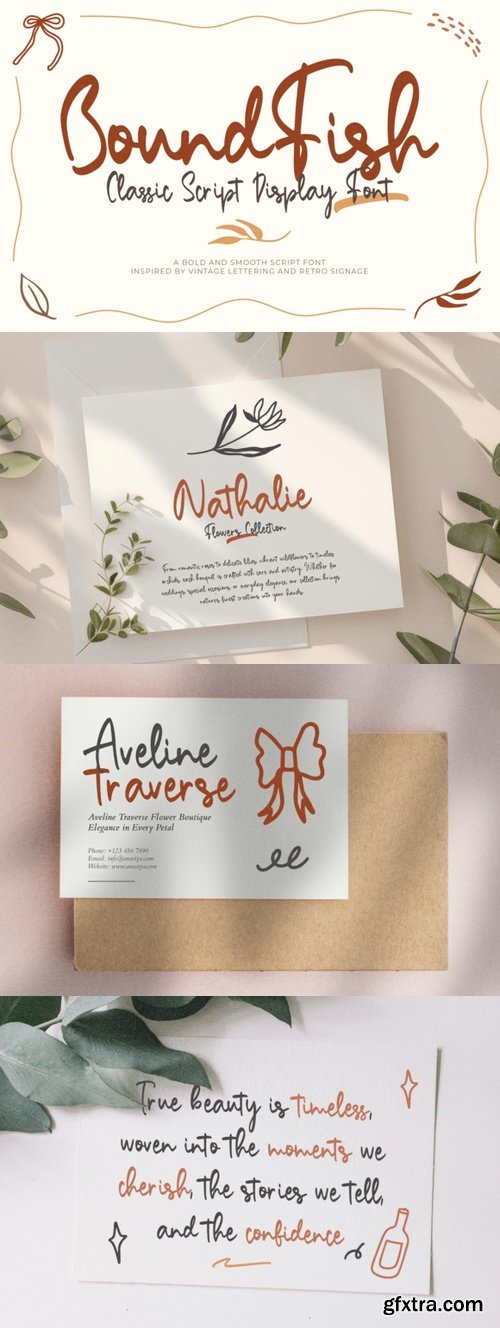
Bound Fish Font
- Bound Fish is an exquisite handwritten font, masterfully designed to become a true favorite. It maintains its classy calligraphic influences while feeling contemporary and fresh. Fall in love with it and bring your projects to the highest levels!